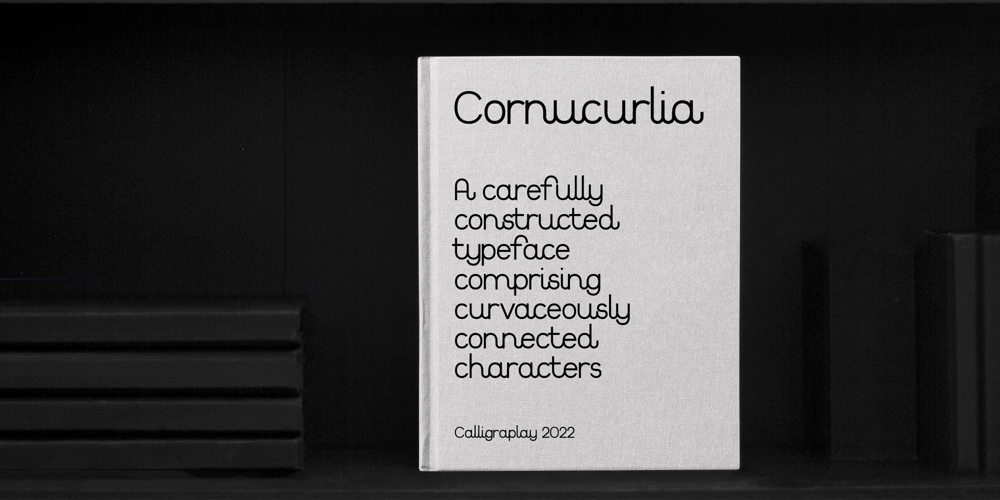
Cornucurlia
Cornucurlia font
Cornucurlia Font Family was designed by Sarah-Jane Loveday and published by Calligraplay. Cornucurlia contains 1 styles and family package options. Cornucurlia is a carefully constructed typeface comprising curvaceously connected characters.Designed as a display font, use it for posters, signage, branding and any type-based artwork that needs stylish, standout lettering.Multi-lingual and with a range of symbols, the font includes 368 glyphs that link together with geometric curves.